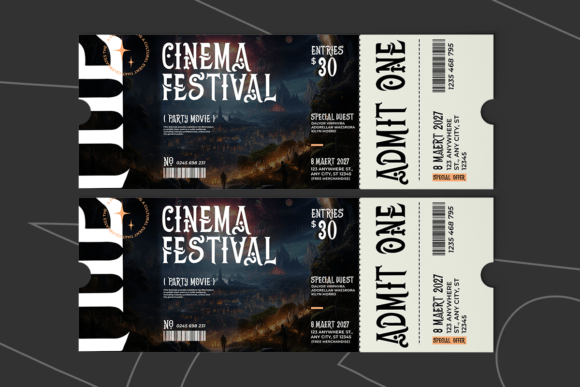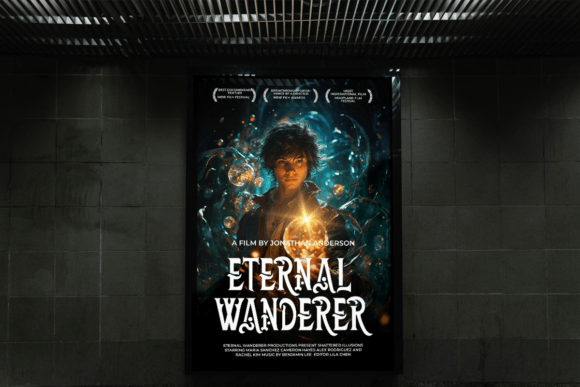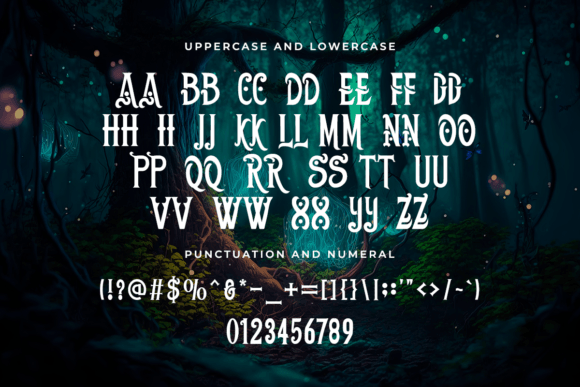
Introduction to Riverwood Font
Introducing Riverwood Modern Serif Font – a sophisticated and stylish typeface that blends traditional serif elements with a contemporary twist.
Perfect for adding a touch of elegance to your design projects, Riverwood features beautifully crafted serifs, balanced proportions, and a timeless aesthetic Ideal for branding, logos, editorial design, invitations, and more, this versatile font elevates any project with its refined charm.
Key Features of Riverwood Font